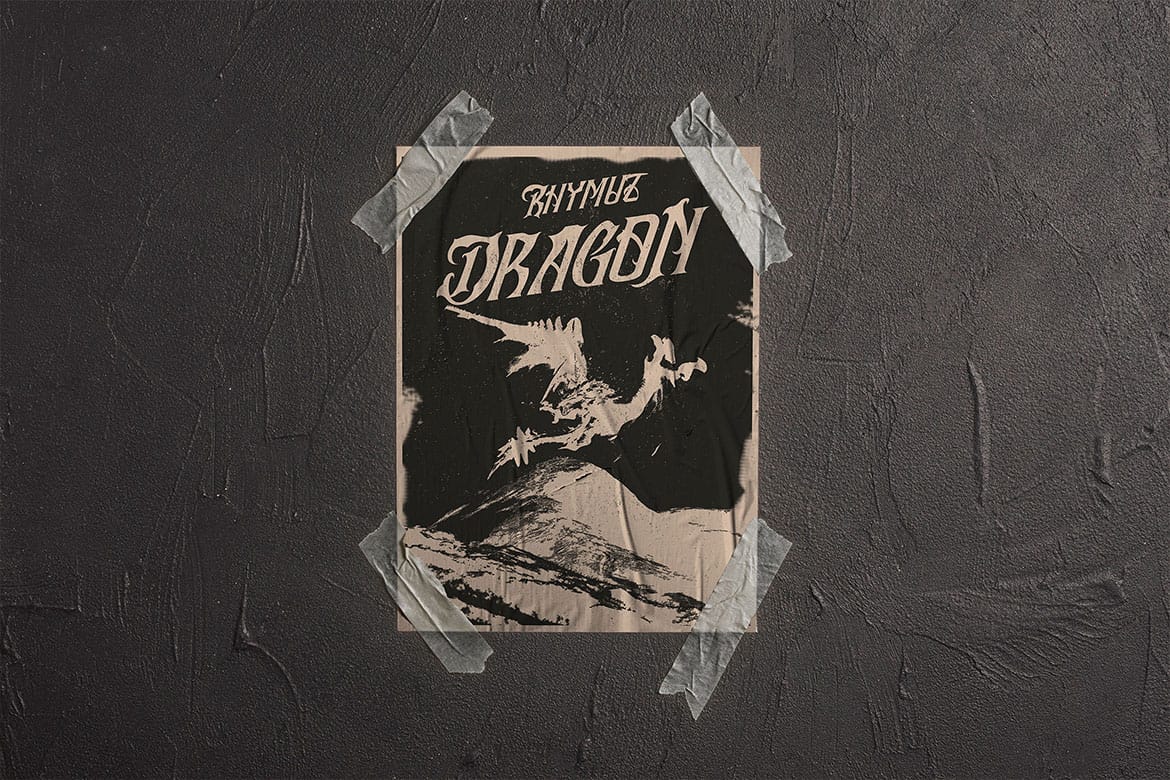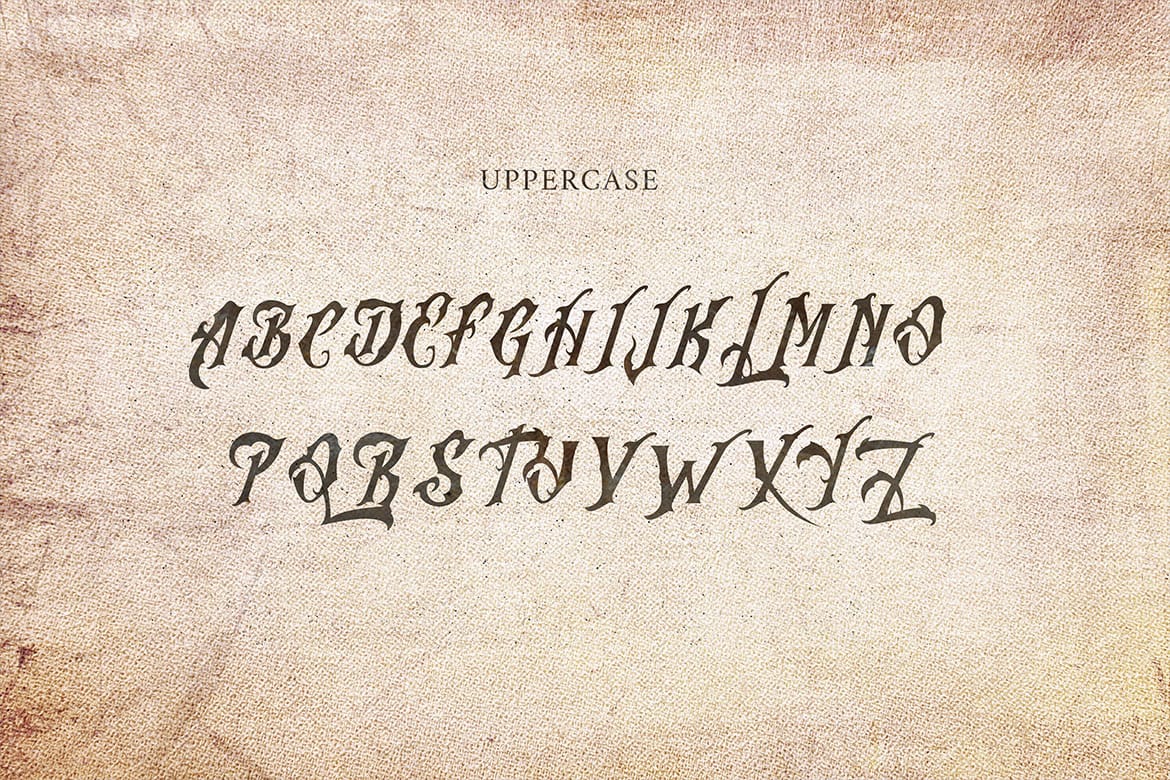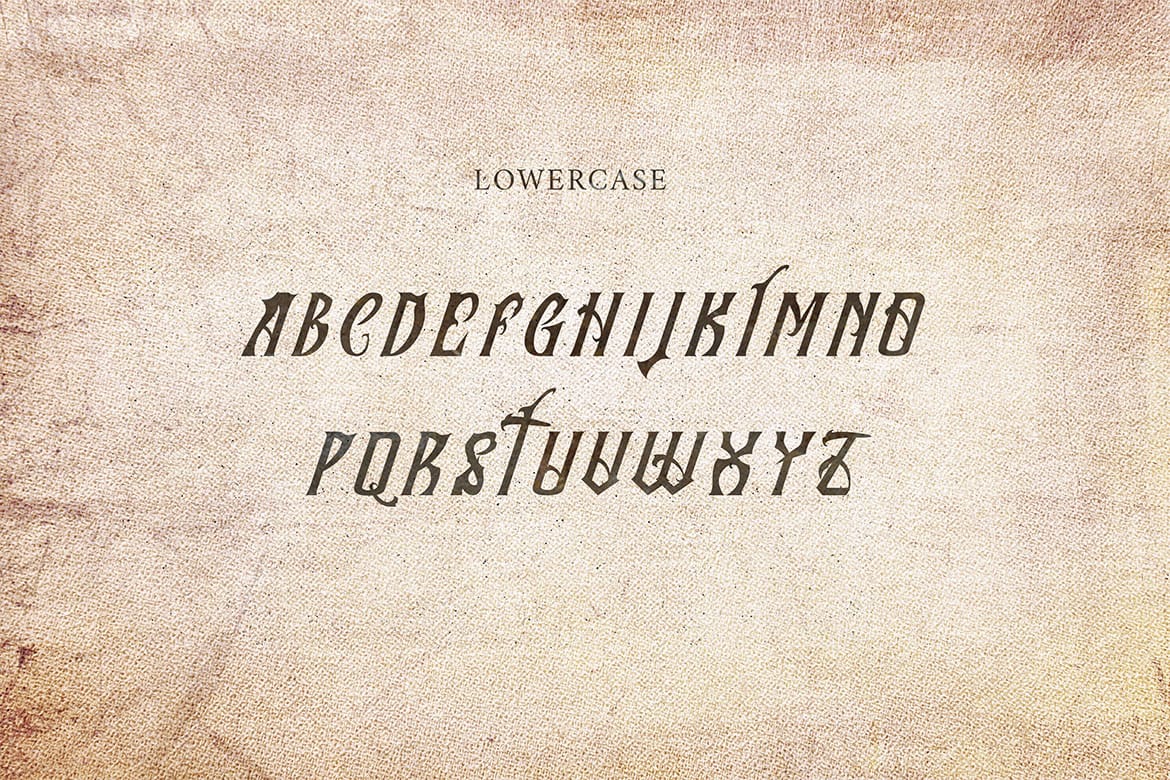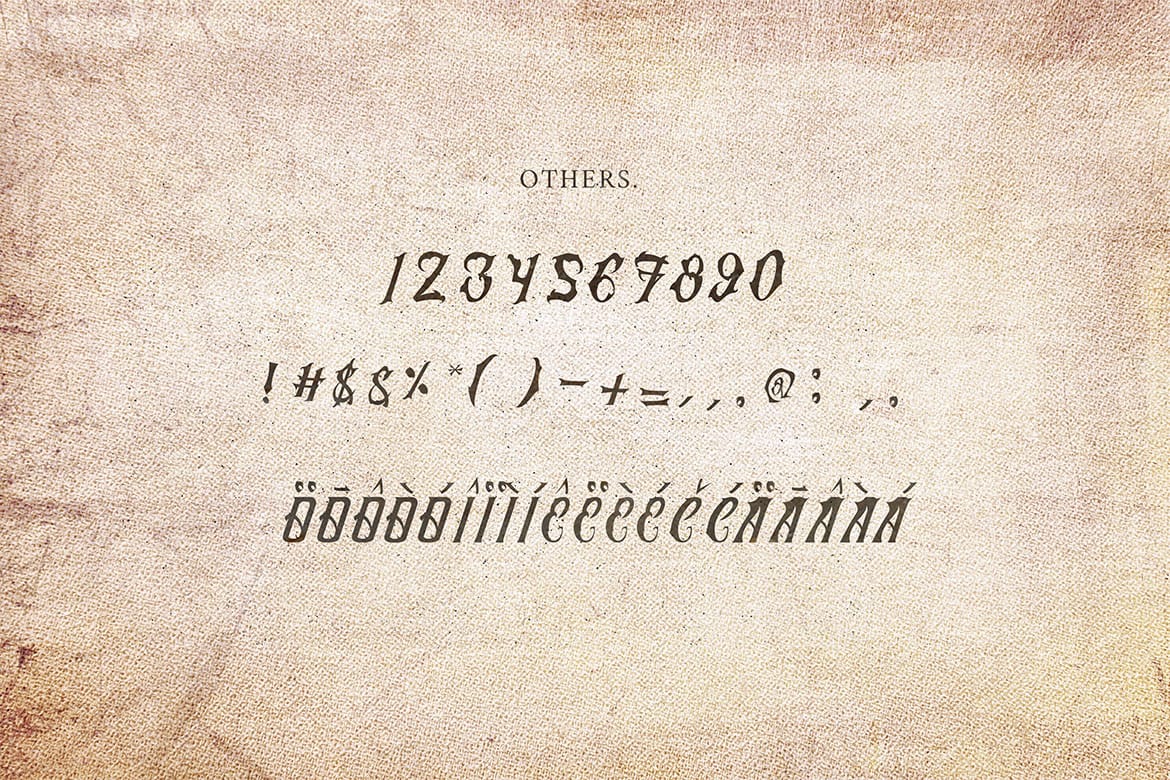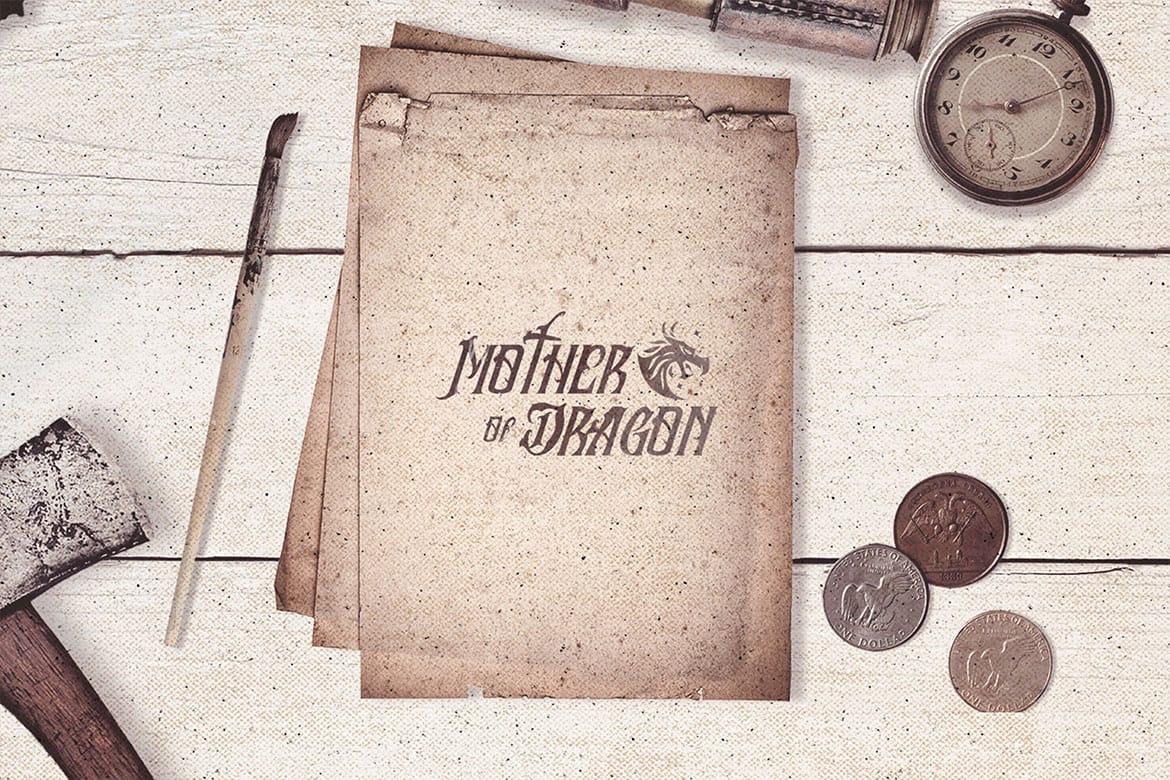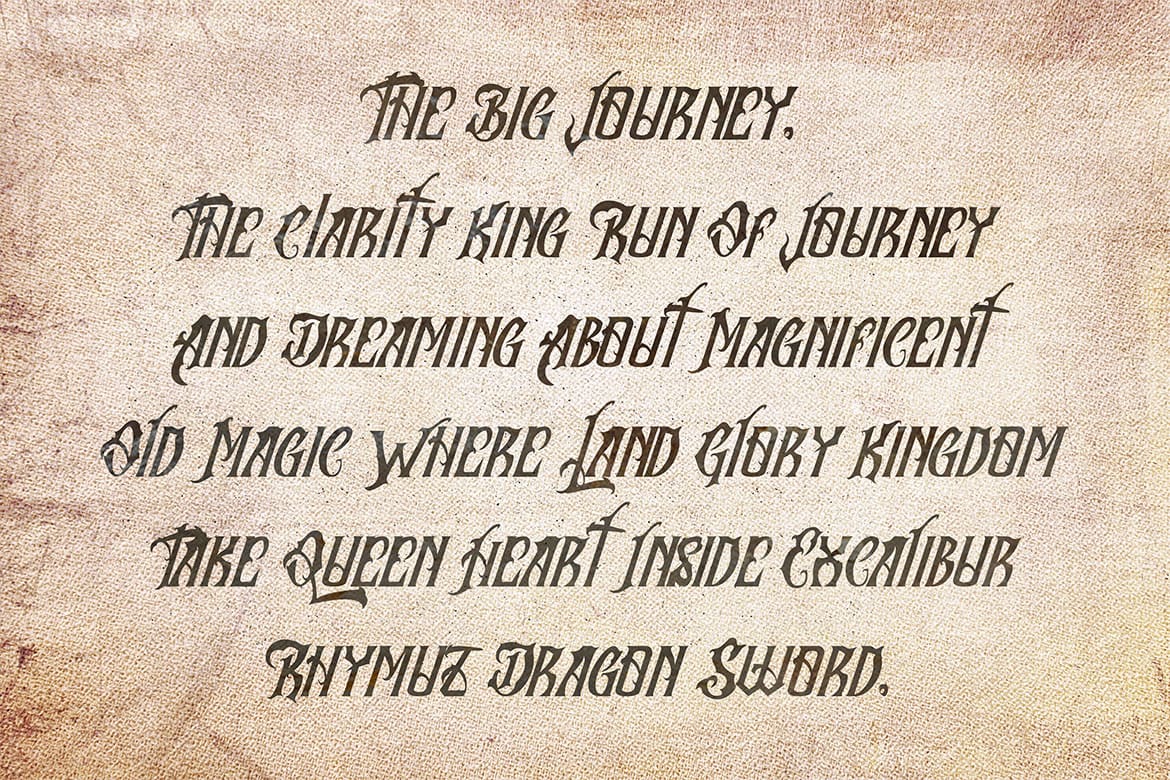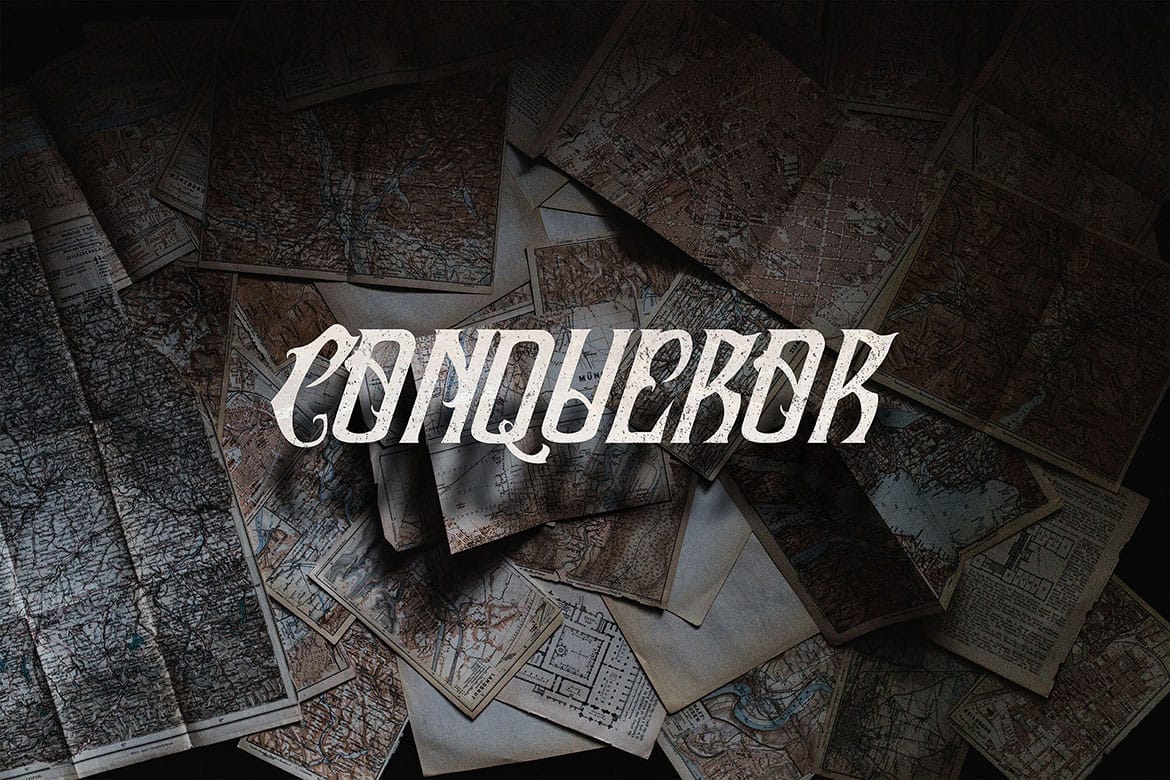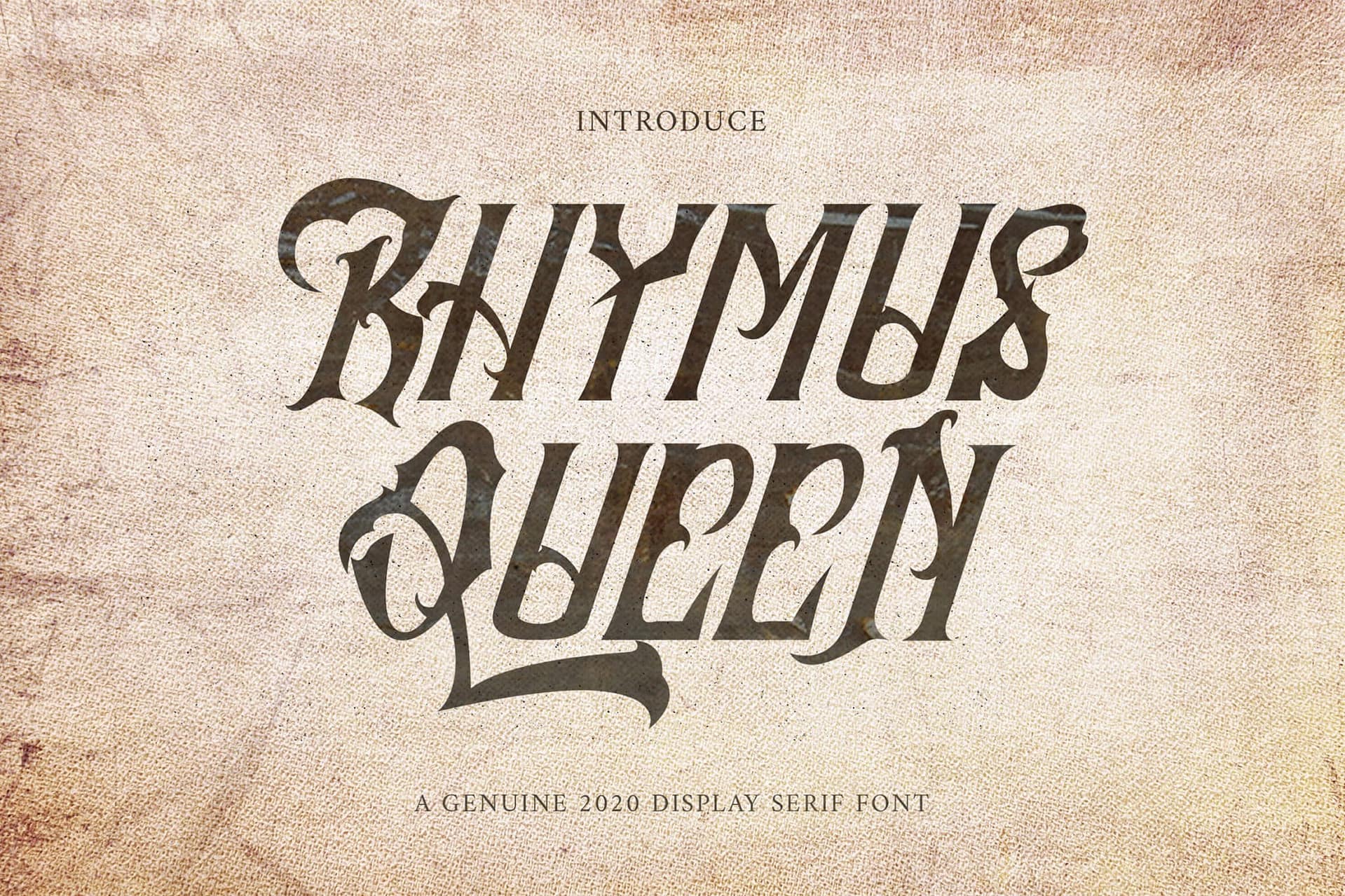
Rhymus Queen Gothic Blackletter Font. This font looks modern, cute, fancy, readable, stylish, catchy and easy to use. It’s a great font for fashion, apparel projects, signature, album cover, logo, branding, magazine, social media, & advertisements, but also works great for other projects.
• Basic Latin A-Z and a-z
• Numbers
• Punctions
• Multilingual Support
Rhymus Queen – Qothic Blackletter Font